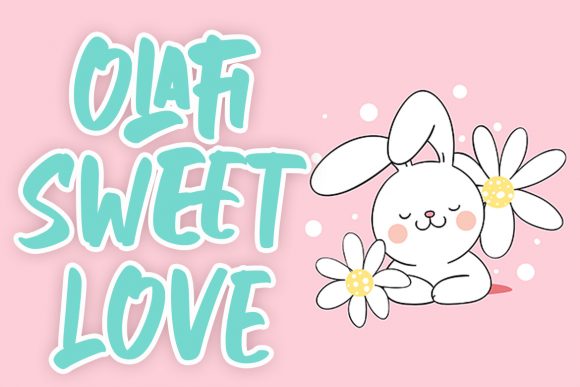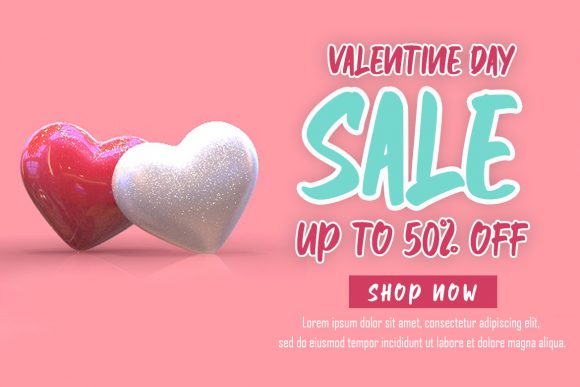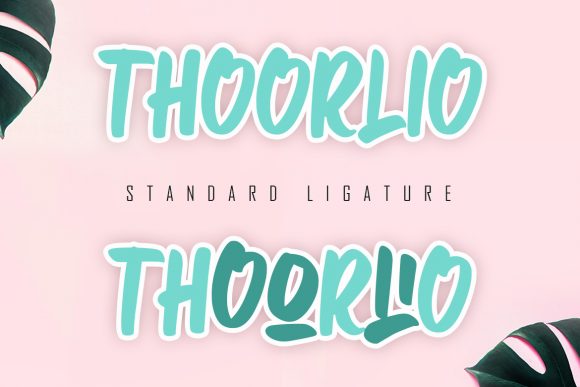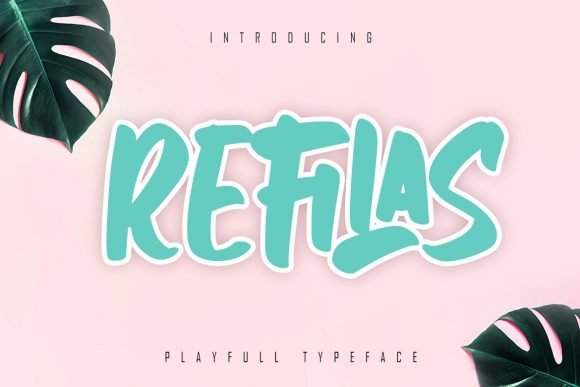
Introduction to Refilas Font
Refilas is a fun and cool display font, that can easily stand out.
Simple but with a strong visual effect, this font will instantly make your creation more appealing than any others .